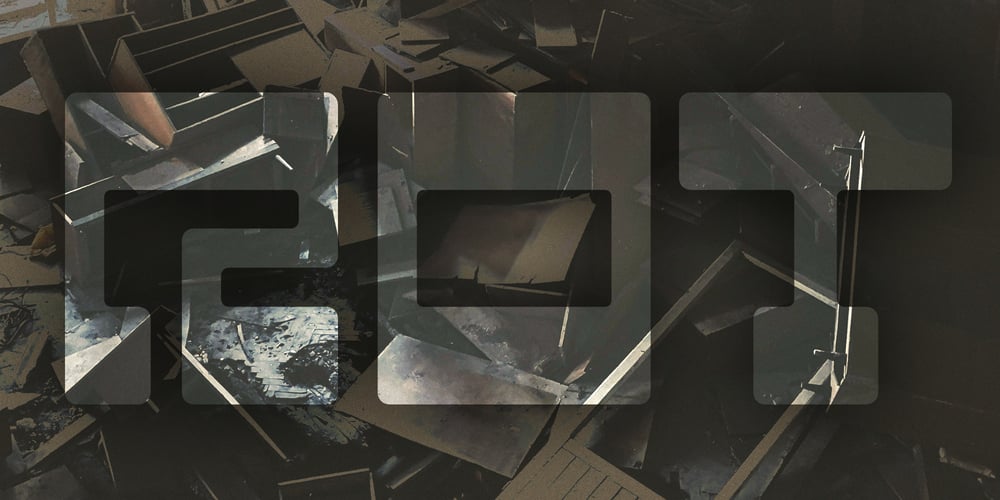
Rot
Rot font
Rot Font Family was designed by Michael Kovacevich and published by MKGD. Rot contains 1 styles and family package options. Rot is clunky, clumsy, and utilitarian. It comes straight from a second rate oracle’s prognostications of a not-so-distant dystopian future. A place where film noir meets twenty first century computer cards; and rainy melancholy nights meet global warming. It speaks of a world that welcomes everyone; provided that they are romantically inclined to living life at the short end of the stick. Metaphorically, Rot is a shot of hard liquor served in a dirty glass.Rot has a glyph count of 388 and supports the following languagesAfrikaans, Albanian, Asu, Basque, Bemba, Bena, Bosnian, Catalan, Chiga, Colognian, Cornish, Croatian, Czech, Danish, Embu, English, Esperanto, Estonian, Faroese, Filipino, Finnish, French, Friulian, Galician, German, Gusii, Hungarian, Icelandic, Indonesian, Irish, Italian, Kabuverdianu, Kalaallisut, Kalenjin, Kamba, Kikuyu, Kinyarwanda, Latvian, Lithuanian, Low German, Lower Sorbian, Luo, Luxembourgish, Luyia, Machame, Makhuwa-Meetto, Makonde, Malagasy, Malay, Maltese, Manx, Meru, Morisyen, North Ndebele, Norwegian Bokmål, Norwegian Nynorsk, Nyankole, Oromo, Polish, Portuguese, Romanian, Romansh, Rombo, Rundi, Rwa, Samburu, Sango, Sangu, Scottish Gaelic, Sena, Shambala, Shona, Slovak, Slovenian, Soga, Somali, Spanish, Swahili, Swedish, Swiss German, Taita, Teso, Turkmen, Upper Sorbian, Vunjo, Walser, Zulu